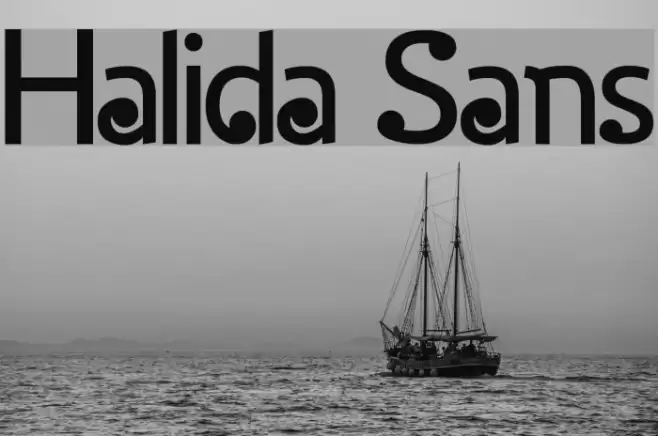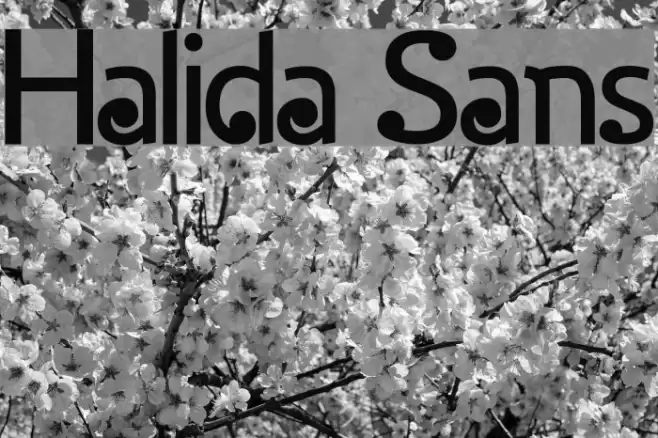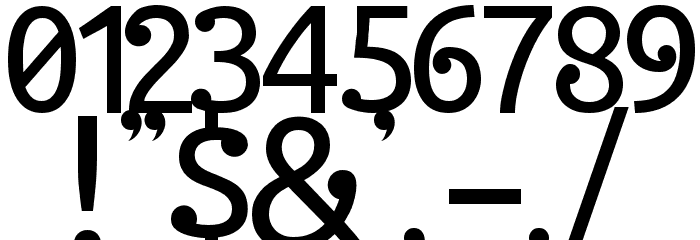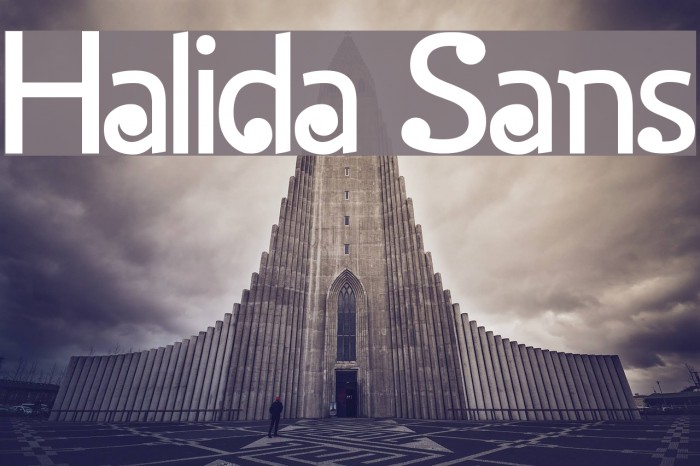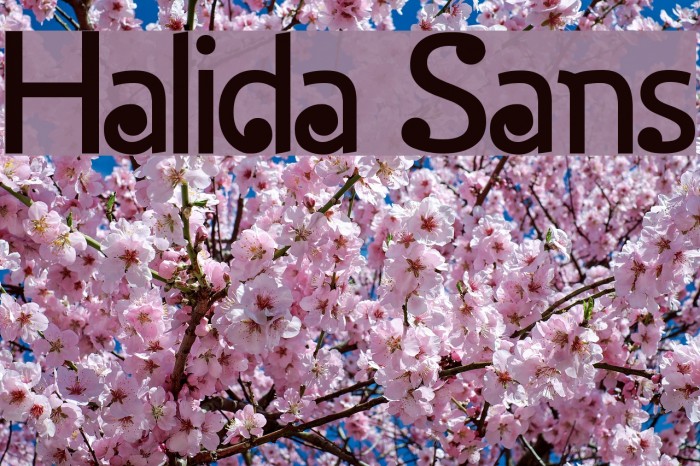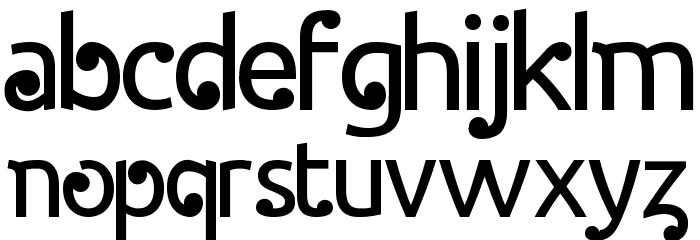
Halida Sans Font
Halida Sans Description
This font features a unique and playful design with a modern twist. The characters are bold and rounded, with distinctive curls and loops that add a whimsical touch. The uppercase letters are particularly striking, with a consistent thickness that gives them a strong presence. The lowercase letters maintain the playful style, with smooth curves and a friendly appearance. The numerals are bold and easy to read, complementing the overall design. Special characters are creatively integrated, maintaining the font's cohesive look. This font is ideal for projects that require a fun and engaging aesthetic.
A bold, playful font with rounded characters and whimsical curls from Uncategorized fonts.
- Proposed Projects: Ideal for children's books, playful branding, creative posters, and modern advertising.